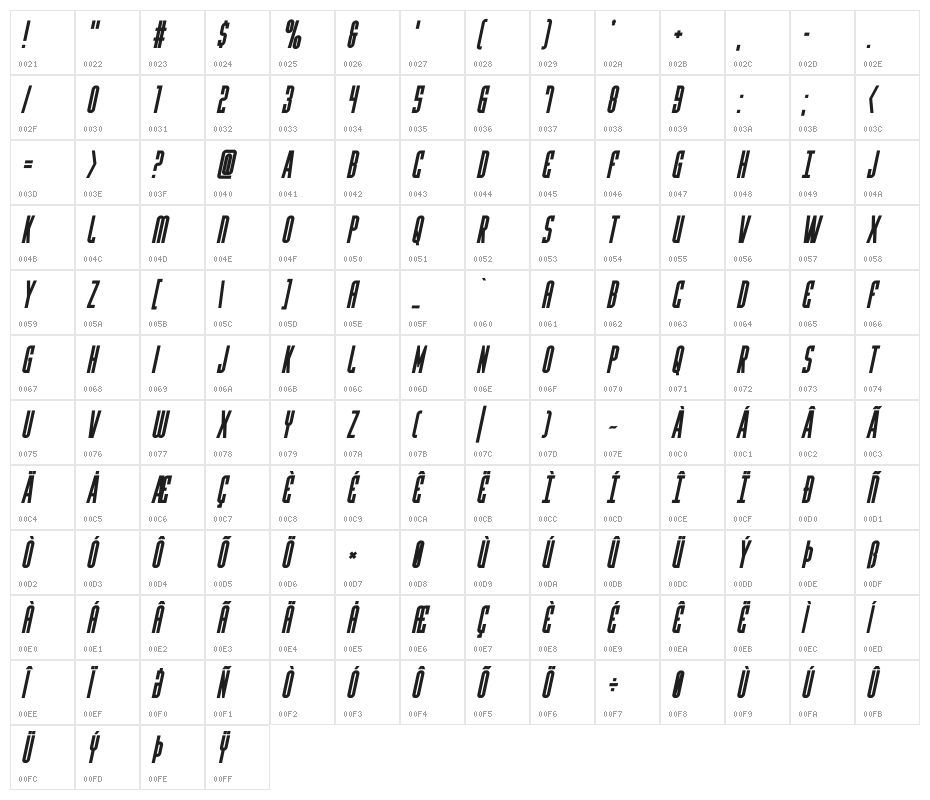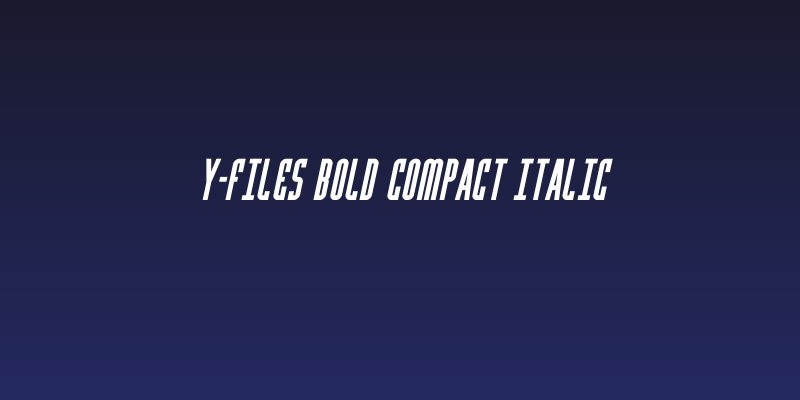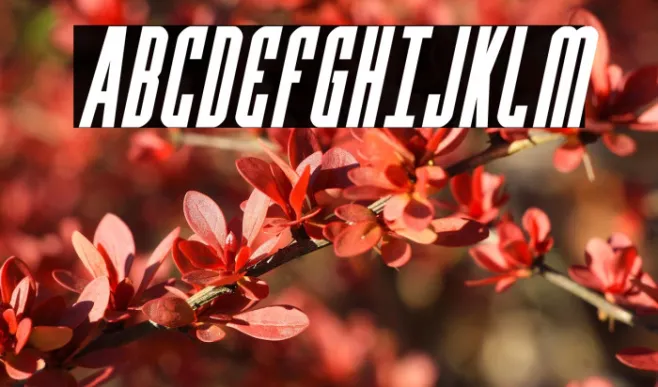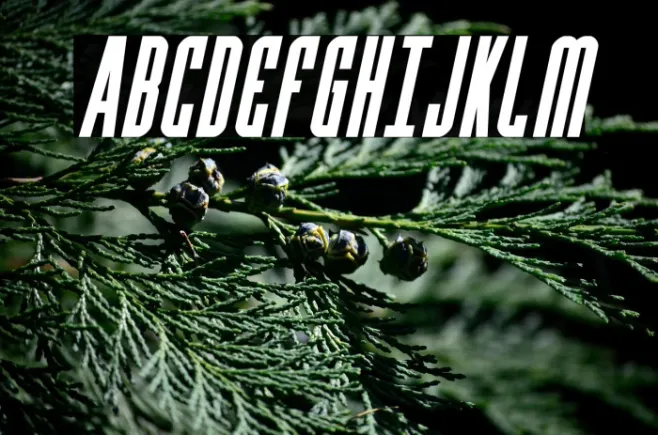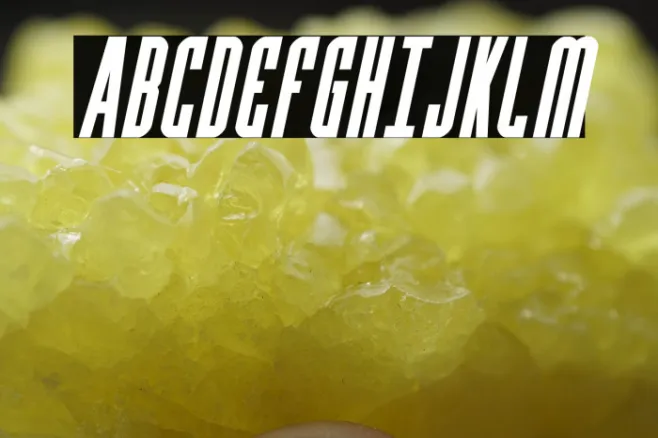
Y-Files Bold Compact Italic Font
Y-Files Bold Compact Italic Description
This font features a bold and compact design with a distinct italic slant, giving it a dynamic and energetic appearance. The uppercase and lowercase letters are tightly spaced, enhancing the compactness of the typeface. The characters exhibit a consistent stroke weight, contributing to a uniform and cohesive look. The numerals and special characters maintain the same bold and italicized style, ensuring visual harmony across all elements. This font's strong presence and slanted orientation make it ideal for attention-grabbing headlines and impactful designs.
| Proposed Projects | Ideal for sports branding, dynamic posters, modern advertising, and impactful headlines. |